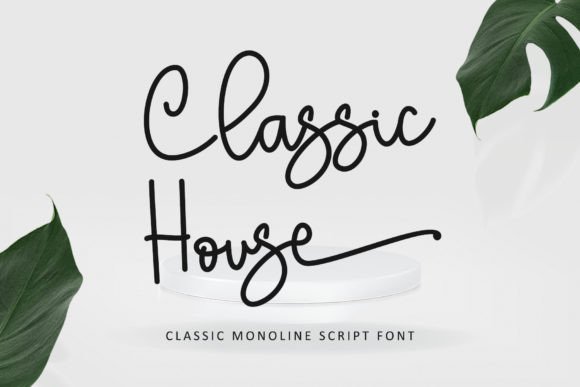
Unleash the Dynamic Spirit of Sportswear with Classic House: The Epitome of Athletic Elegance
In the realm of sports apparel, where energy and style converge, the Classic House font emerges as a game-changer, redefining the boundaries of athletic expression. Its monoline structure, reminiscent of a calligrapher's fluid strokes, dances across your designs with an unmatched grace and活力.
Picture your brand's logo, emblazoned with the Classic House font, radiating an aura of athletic prowess. Its smooth, flowing lines evoke the elegance of a seasoned athlete, while its dynamic curves capture the energy of a fierce competitor. Create branding that resonates with the hearts of sports enthusiasts, leaving an indelible mark on their minds.
Journey through the world of typography and discover the endless possibilities that await with Classic House. Its versatility allows you to craft captivating quotes that ignite passion and inspire action. Imagine your words, adorned with the Classic House font, leaping off screens and billboards, captivating audiences with their boldness and charm.
With Classic House, you hold the key to unlocking a world of creativity and self-expression. Its PUA encoding opens the door to a treasure trove of glyphs, empowering you to explore new horizons of design. Unleash your imagination and let your designs soar to new heights, leaving a lasting impression on the sportswear industry.
Harnessing the power of Classic House is a journey worth embarking on, a journey that leads to the creation of iconic designs that transcend time. Experience the thrill of crafting logos that command attention, branding that captivates, and quotes that reverberate with passion.